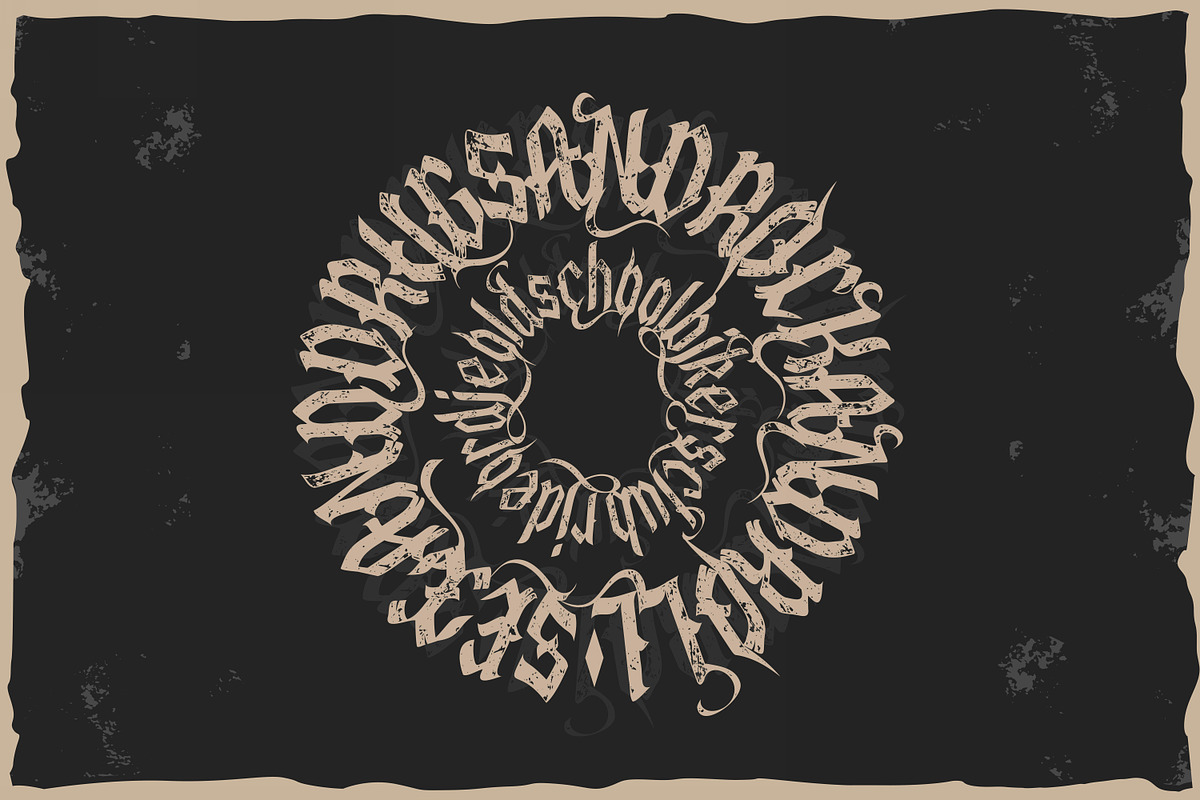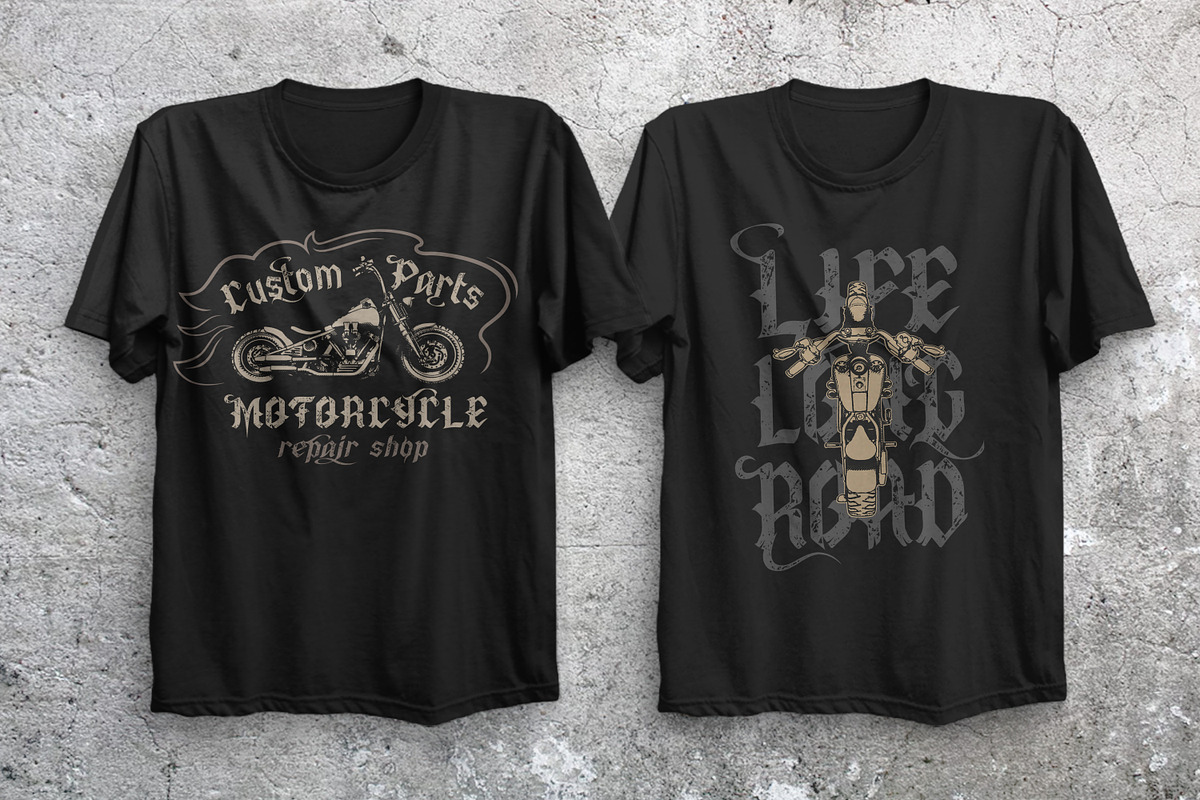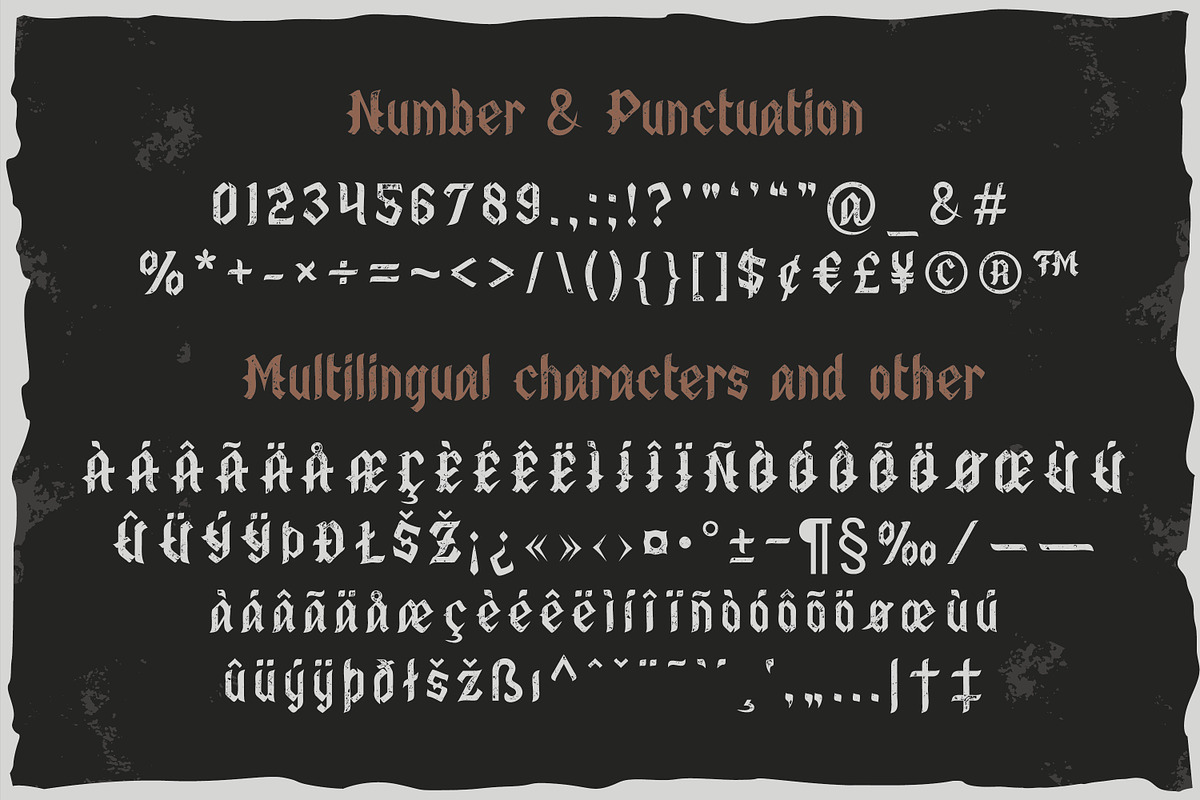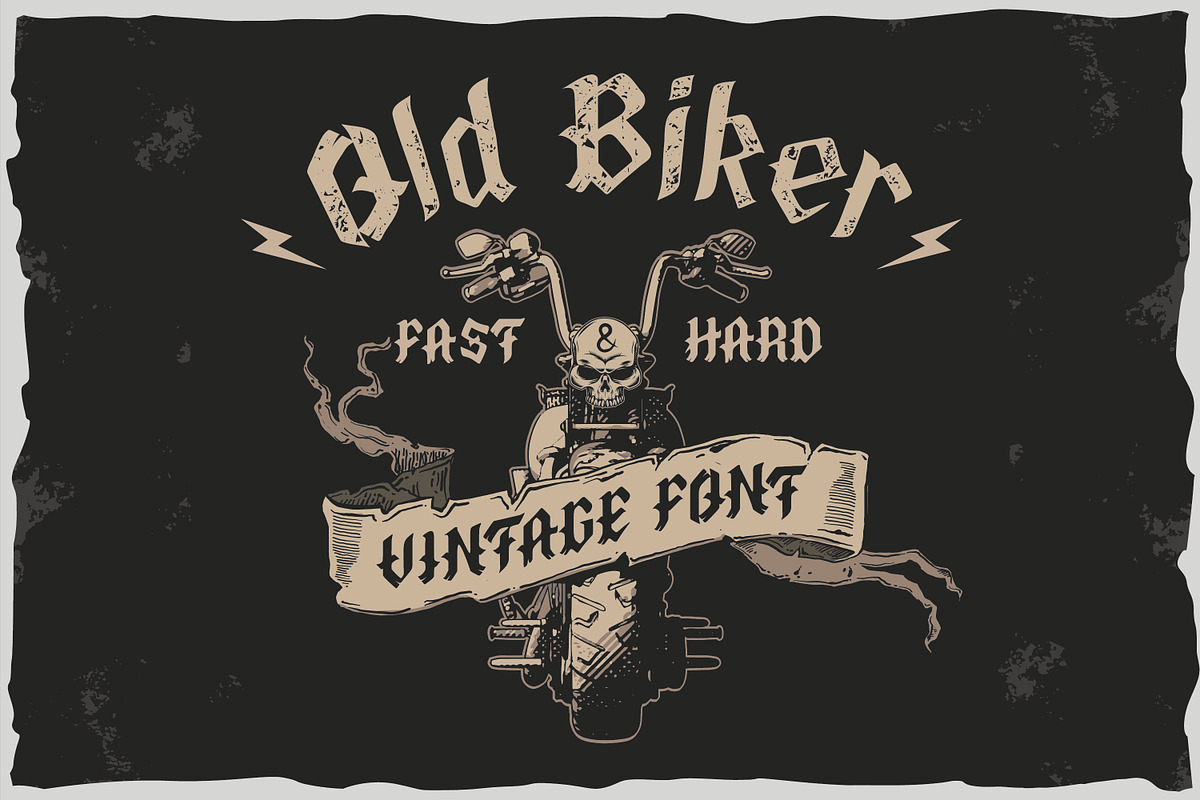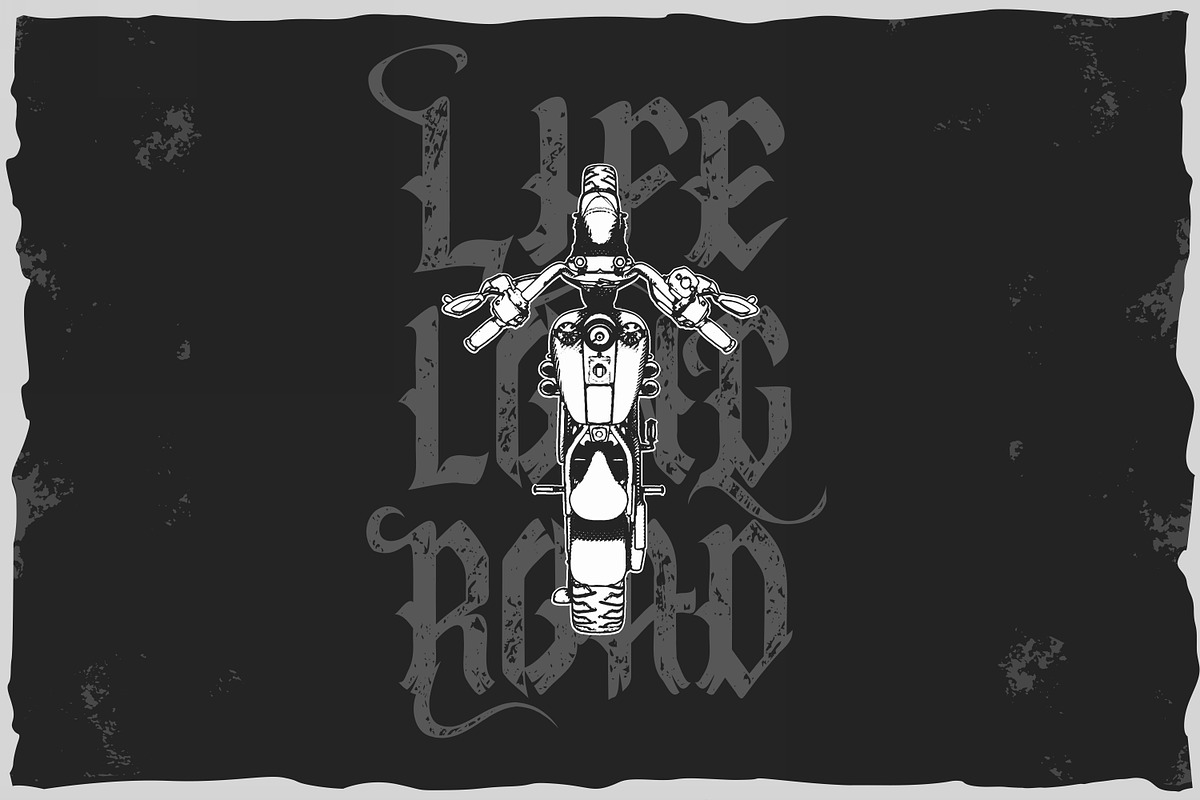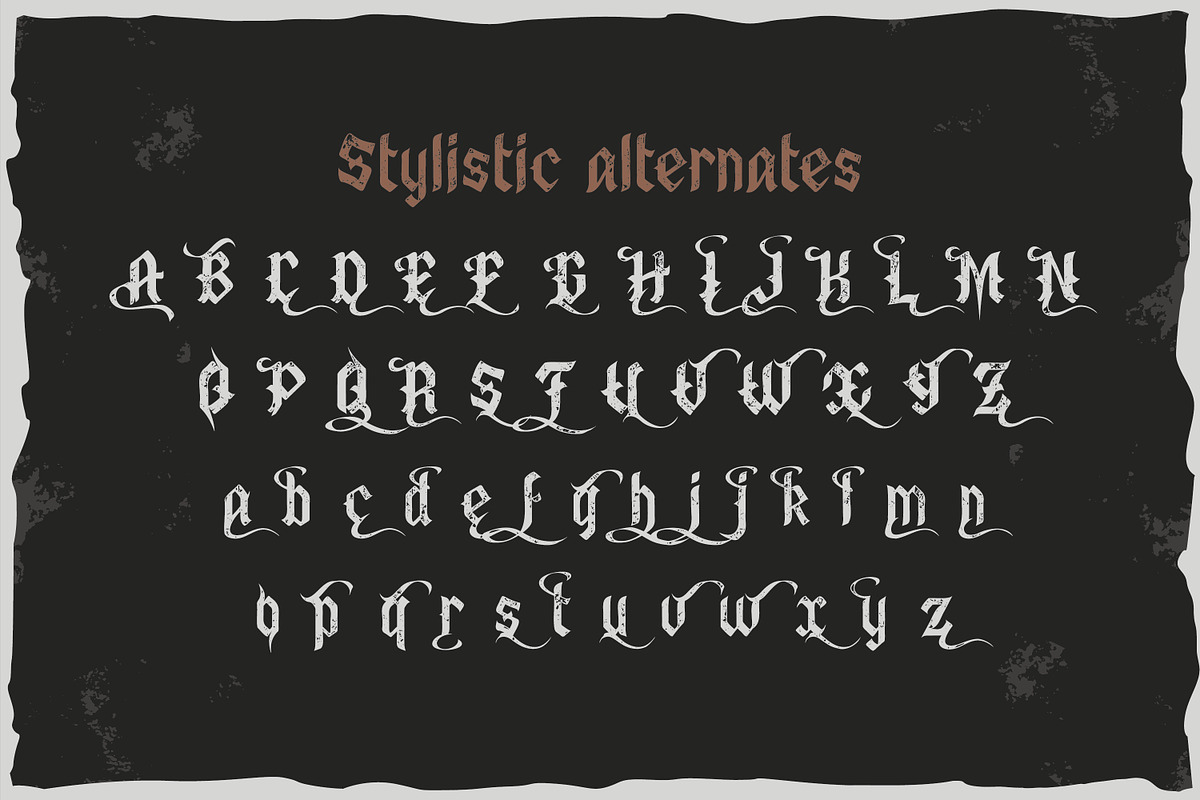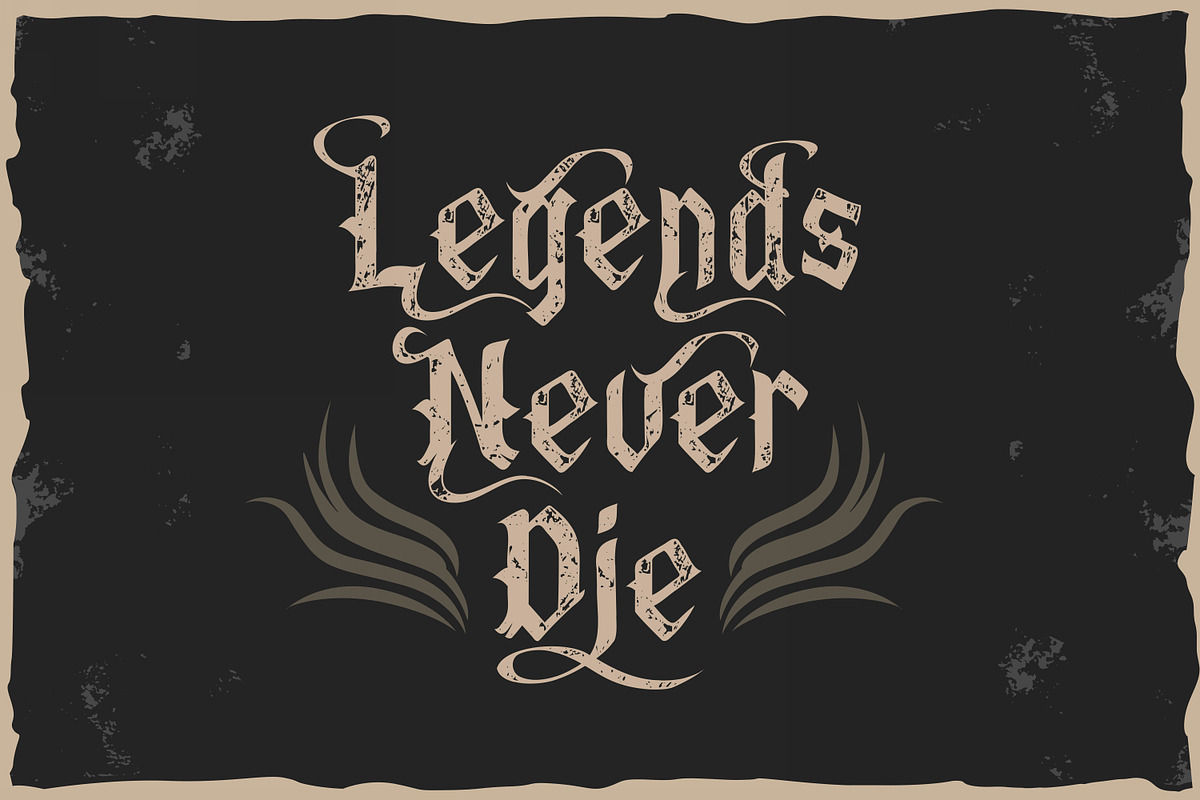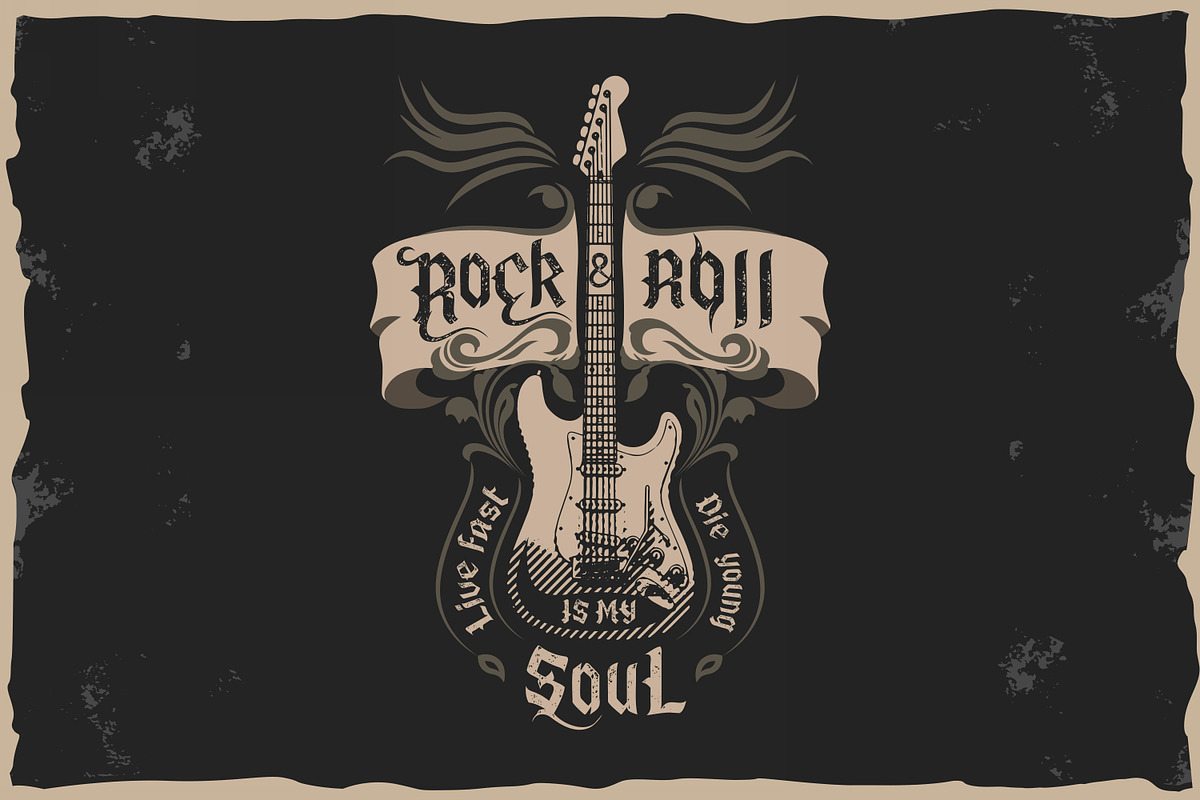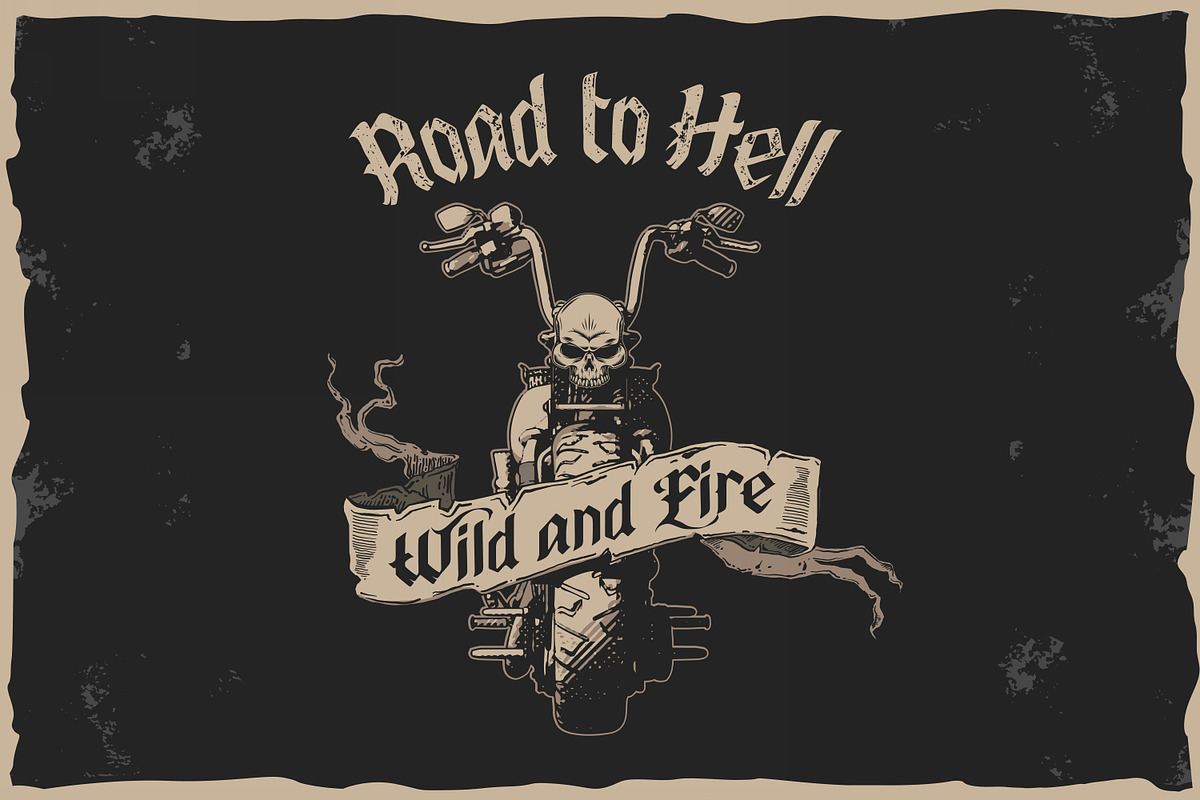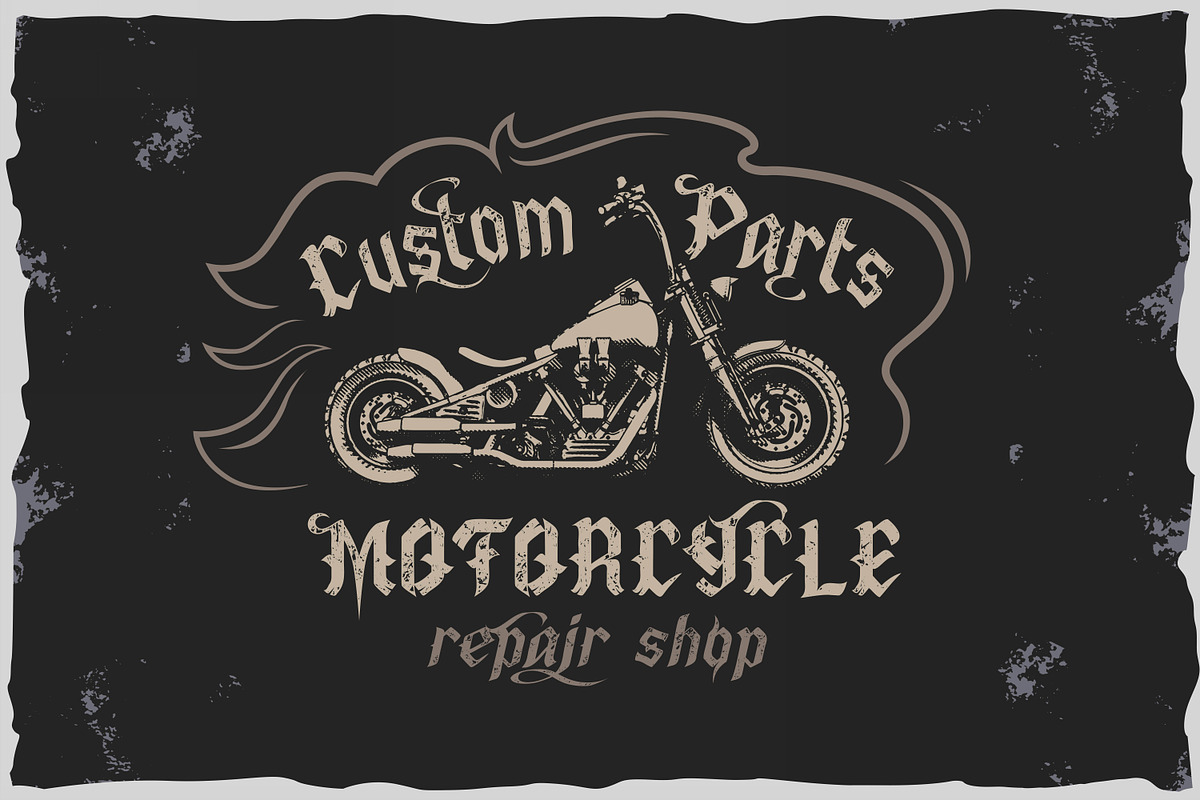
Old Biker. Gothic style vintage labe
Introducing a new font - an old biker. It is a multilayer vintage typeface with 5 styles. The font contains stylistic alternatives for uppercase and lowercase letters. Numbers, punctuation and multilingual characters for each style. The font design is inspired by gothic, biker and rock culture. The archive also includes 8 designs for printing on T-shirts.